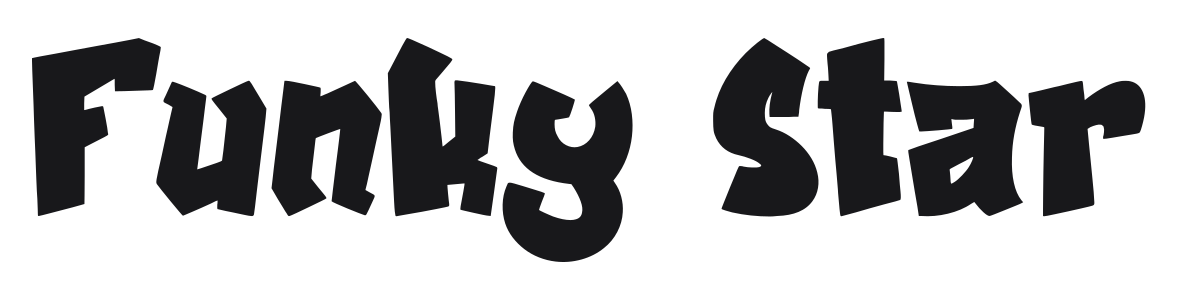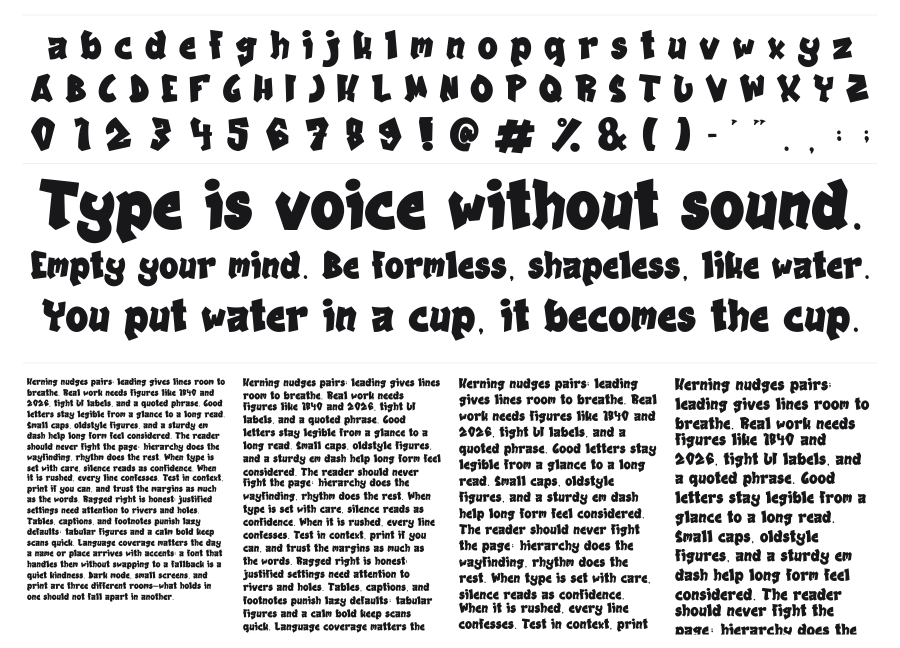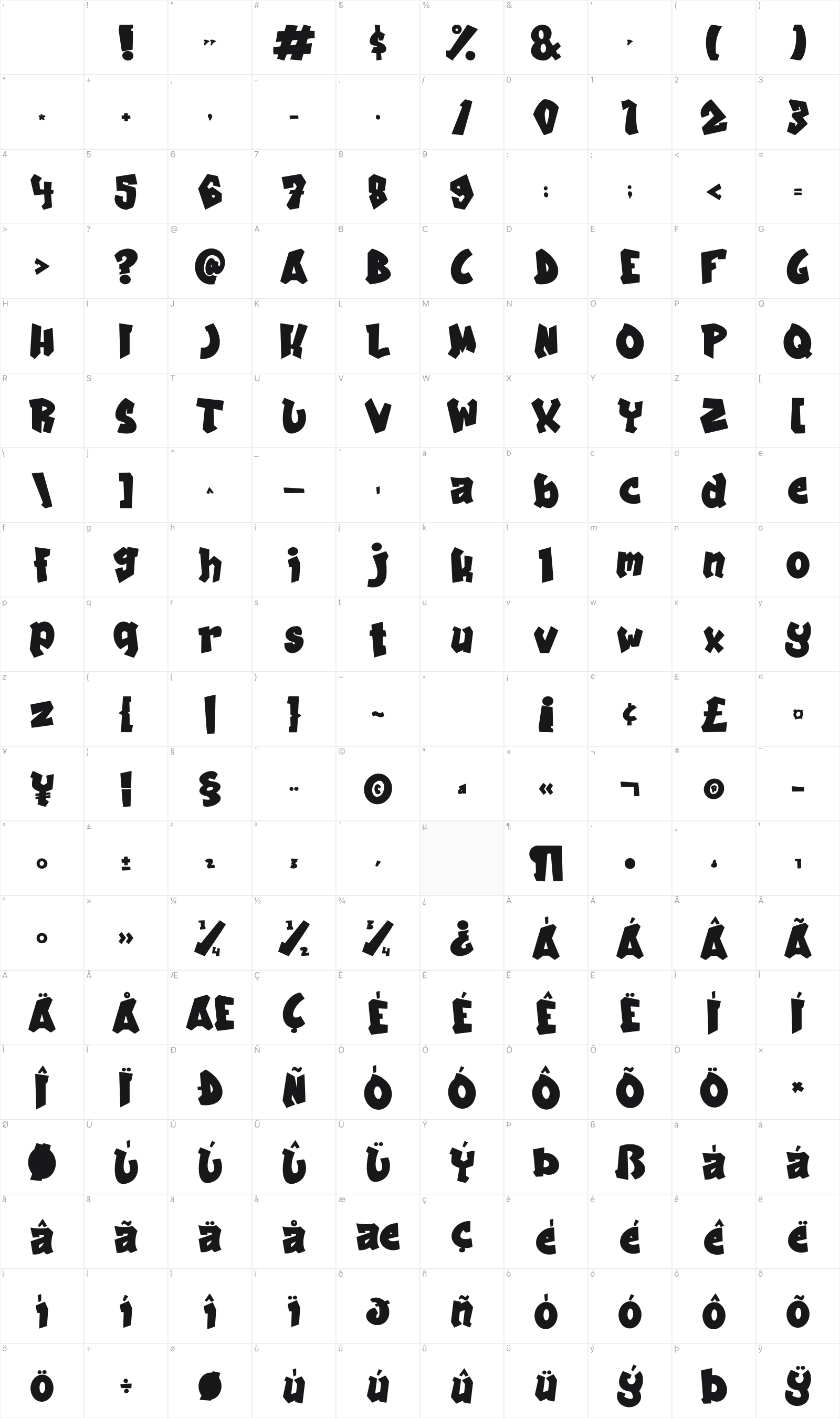
Funky Star
Funky StarLicense is a bold, groovy display face dripping with 1970s psychedelic energy. Its heavy strokes, jagged serifs, and irregular angular notches give each character a hand-carved, almost tribal quality. Great for retro-themed posters, album art, and anything that needs to feel loud and unapologetically funky.